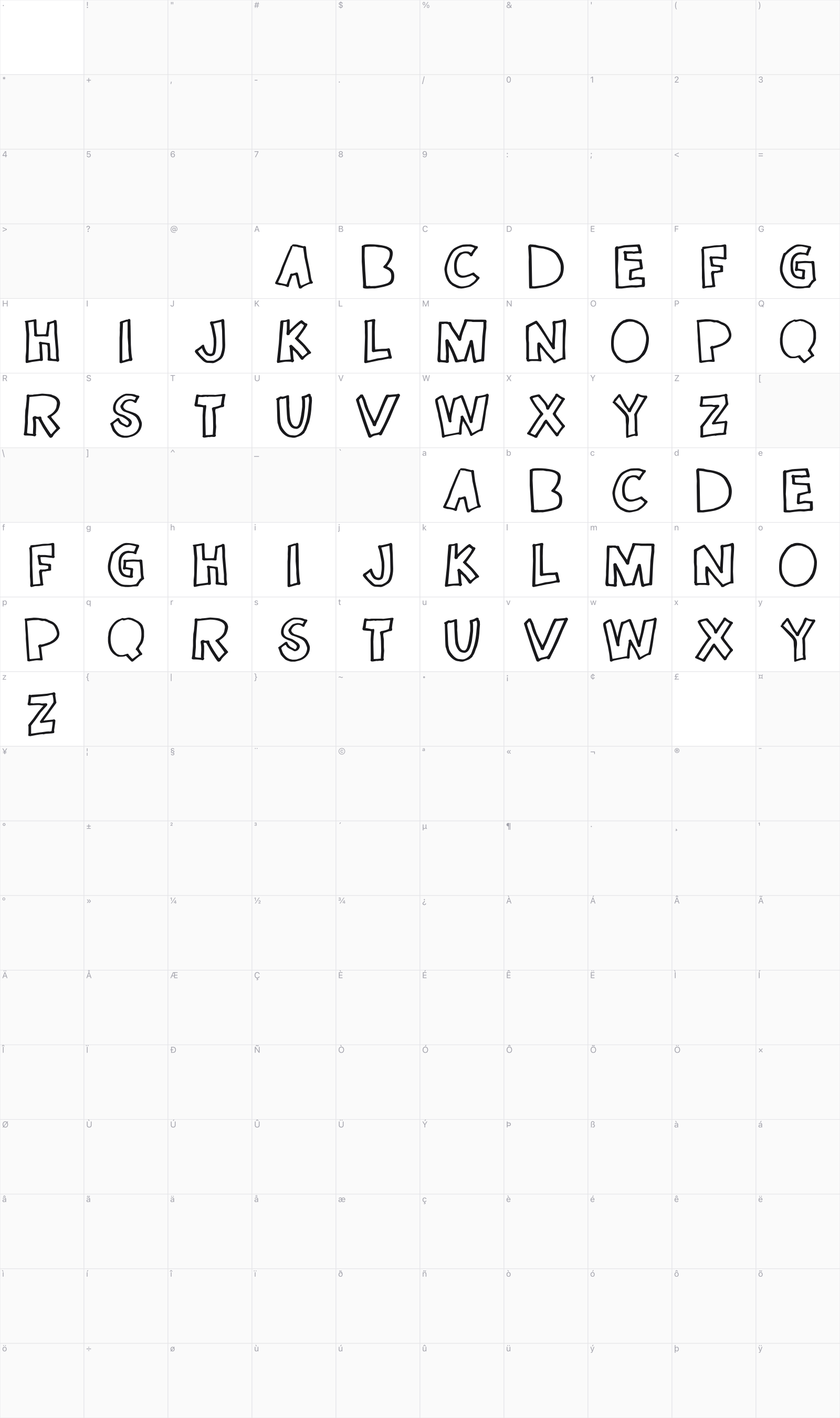
Once In A While
Once In A While is a playful, hand-drawn outline face from Pizza Dude with loose, cartoon-style letterforms that feel sketched rather than constructed. The open outlines and uneven strokes give it a lighthearted, quirky energy that works well for headlines, children's projects, comic lettering, and casual branding where polish would be beside the point.